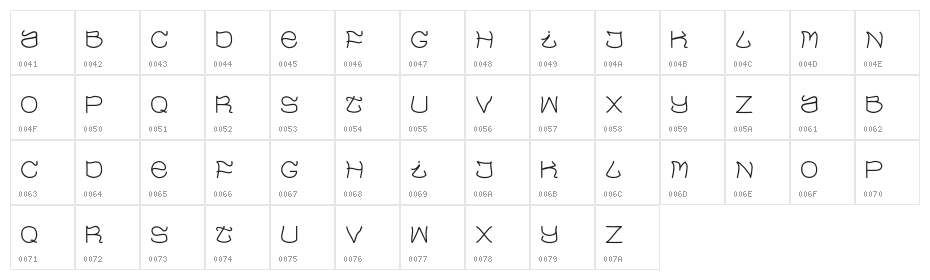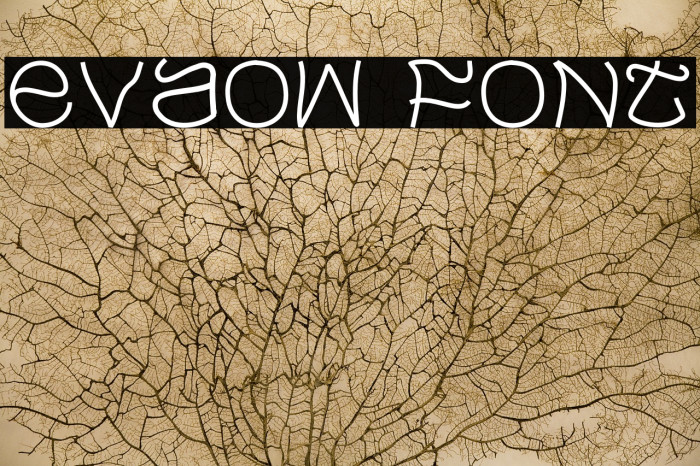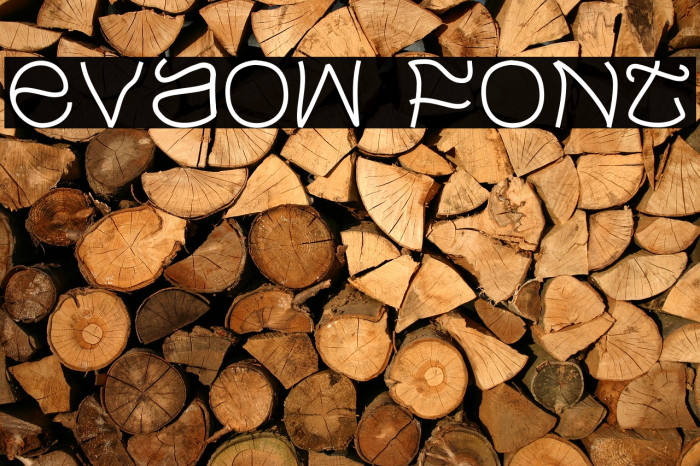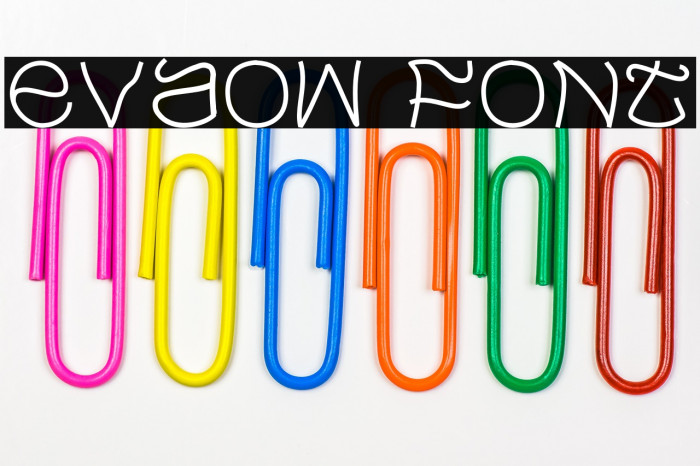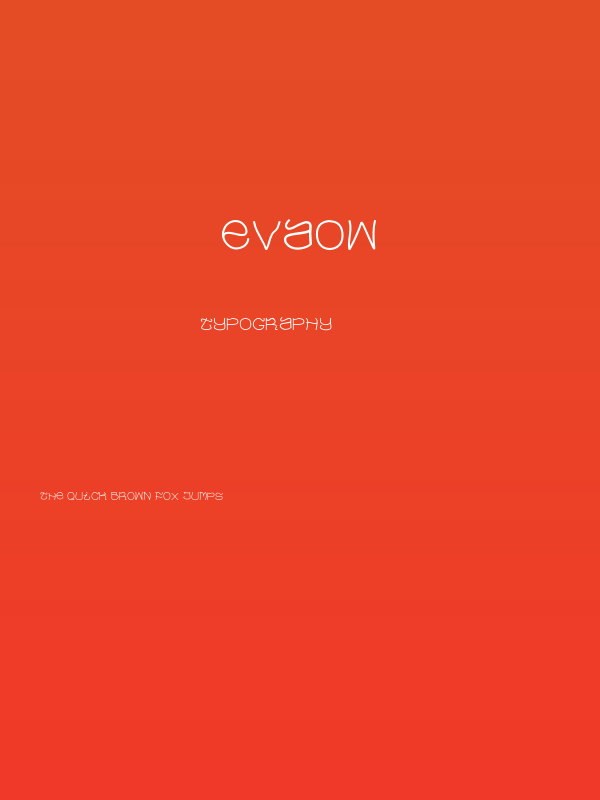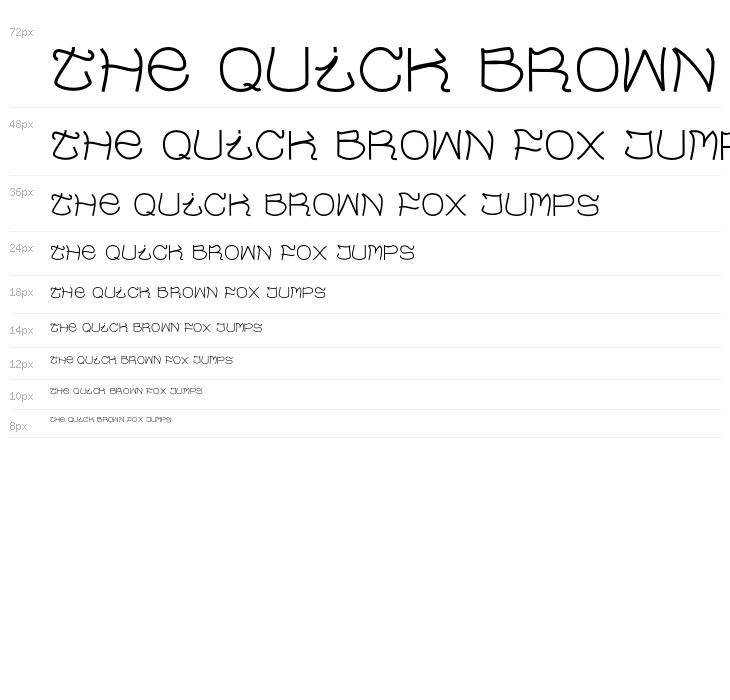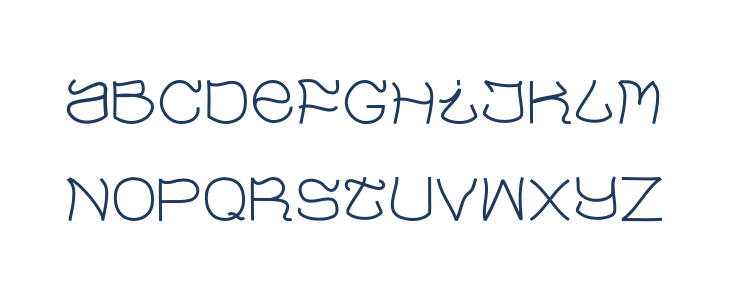
Evaow Font
Evaow Description
This font features a unique and artistic design, characterized by its flowing and interconnected strokes that give it a whimsical and playful appearance. The letters have a consistent height, with slight variations in width that add to its charm. The curves and loops are prominent, creating a sense of movement and fluidity. The font maintains a balance between readability and decorative elements, making it suitable for creative projects. The overall style is reminiscent of hand-drawn or calligraphic scripts, with a modern twist that makes it stand out.
| Use Case | Logos, Headlines, Artistic projects |
| Proposed Projects | Ideal for creative projects such as invitations, greeting cards, artistic posters, and branding materials that require a playful and unique touch. |